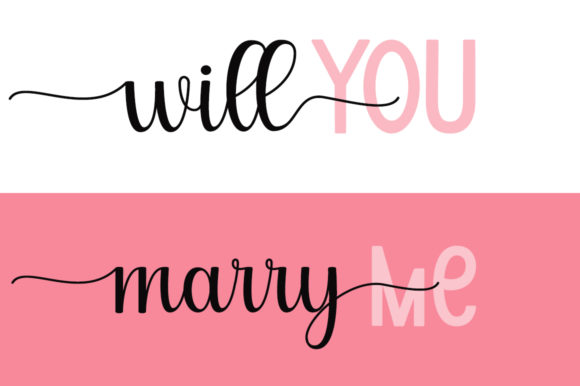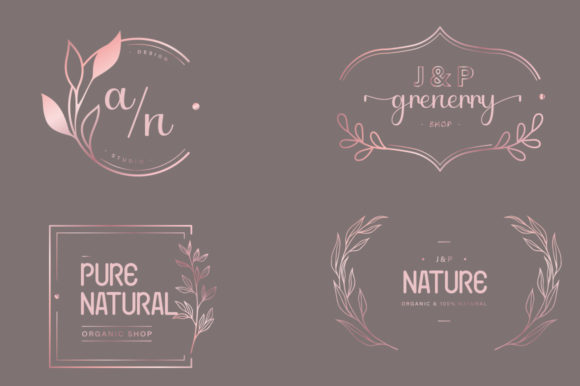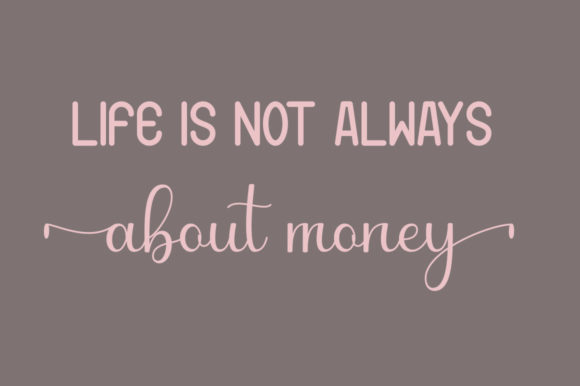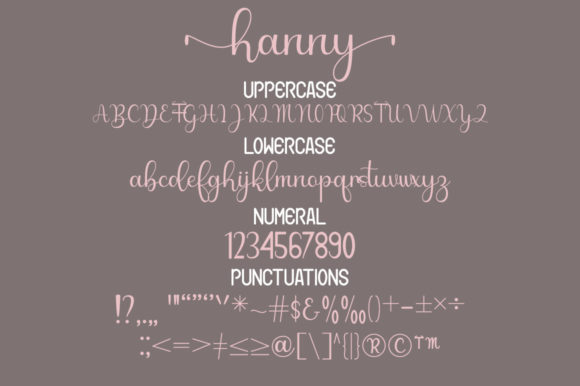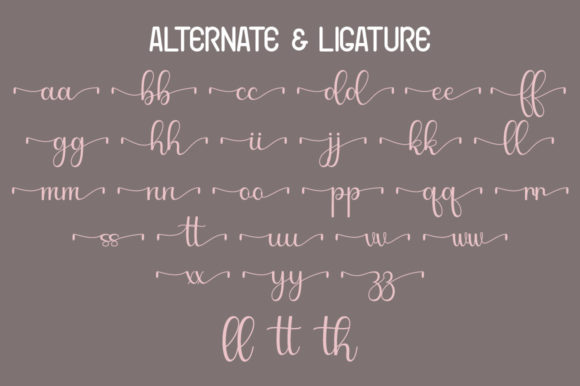
About Moon Font
Moon is a lovely handwritten font featuring well-rounded characters and a stylish vibe. Get inspired by its light and approachable style, and employ it in your most favorite creations. This font is PUA encoded which means you can access all of the glyphs and swashes with ease!